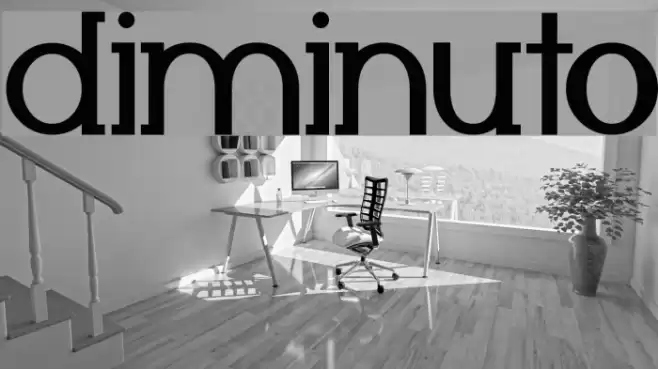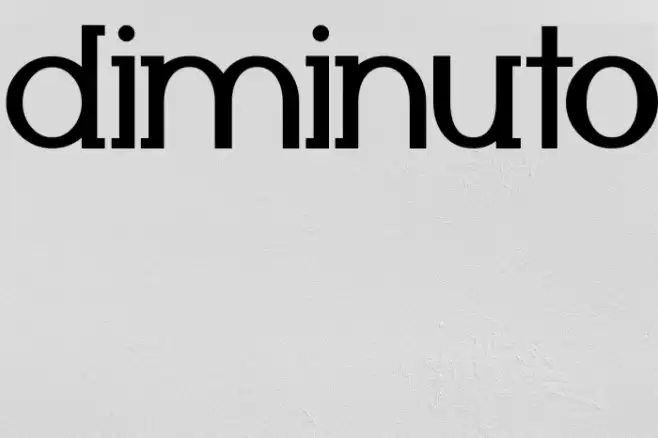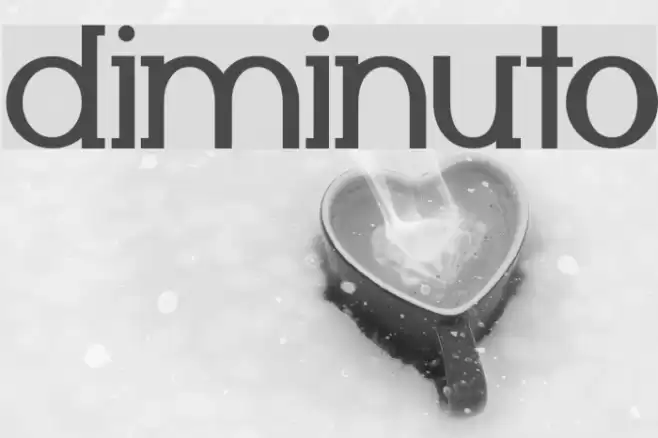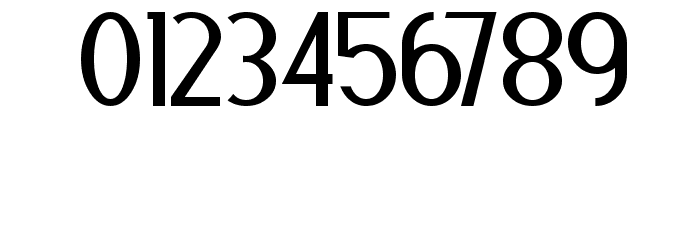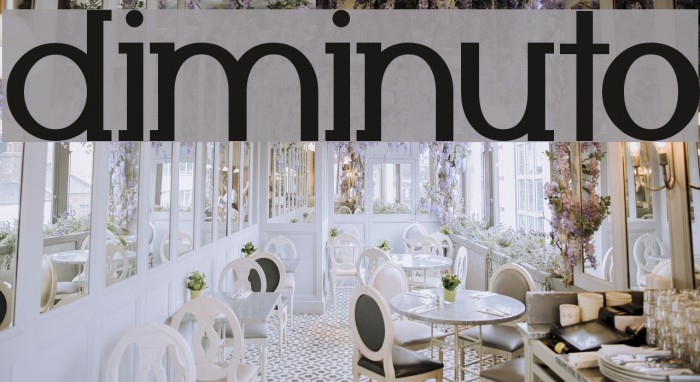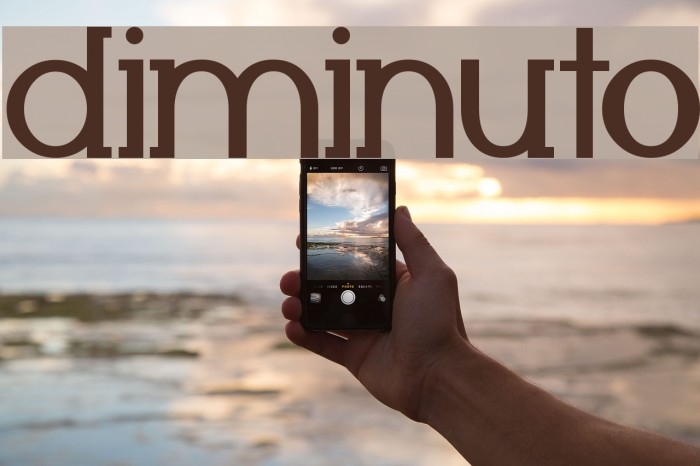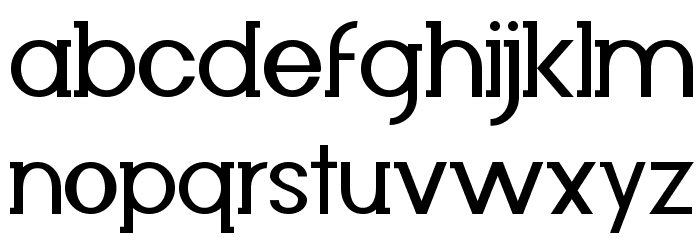
Diminuto Font
Diminuto Description
This font features a clean and modern sans-serif style with a geometric structure. The characters are well-balanced, with consistent stroke widths that provide a harmonious appearance. The rounded edges of the letters add a friendly and approachable feel, making it versatile for various design applications. The numerals are clear and easy to read, maintaining the same geometric style as the letters. Overall, this font is suitable for both digital and print media, offering a contemporary look that is both professional and stylish.
A modern, geometric sans-serif font with rounded edges and consistent stroke widths from Uncategorized fonts.
- Proposed Projects: Ideal for branding, web design, advertising, and editorial layouts.